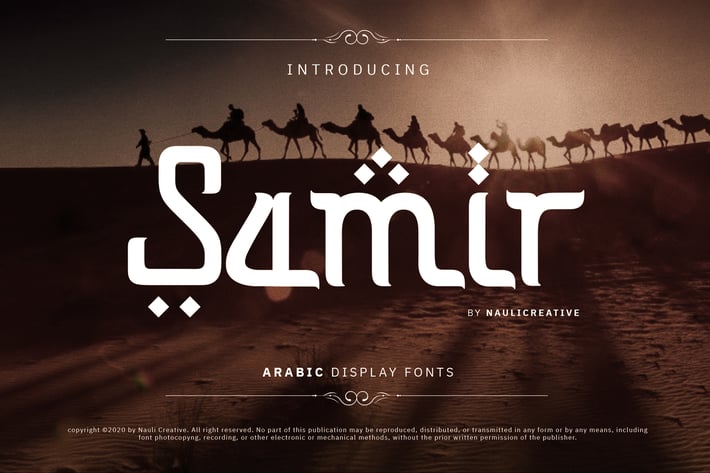
Samir - Elegant Arabic Style Font
Are you looking for a elegant devorative font that have an arabic feel? We can help! Try to download our Samir font. The font is suitable to use for arabic related event and celebration. Wedding invitation, Eid Mubarak card, Ramadan poster, postcard, photography, branding, editorial, quote, travelling, signature, and many more to see the best of it :)